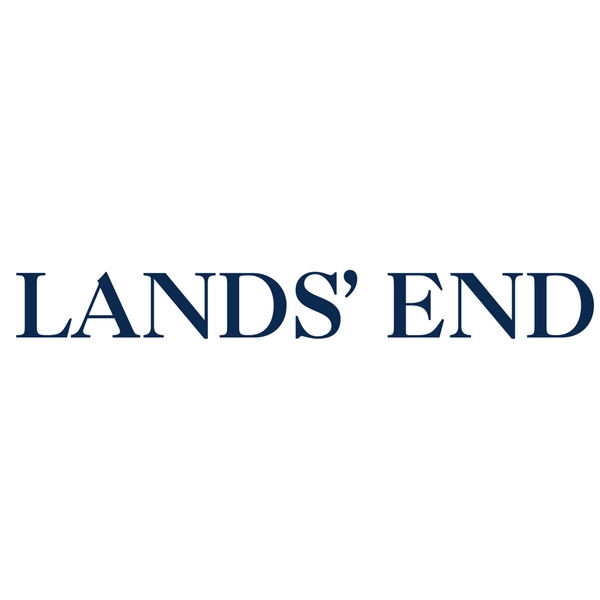
Lands’ End Font
Apparel*Lands' End *is an American clothing company that was founded in 1963 by Gary Comer. It is known for its high-quality, classic clothing and accessories for men, women, and children.